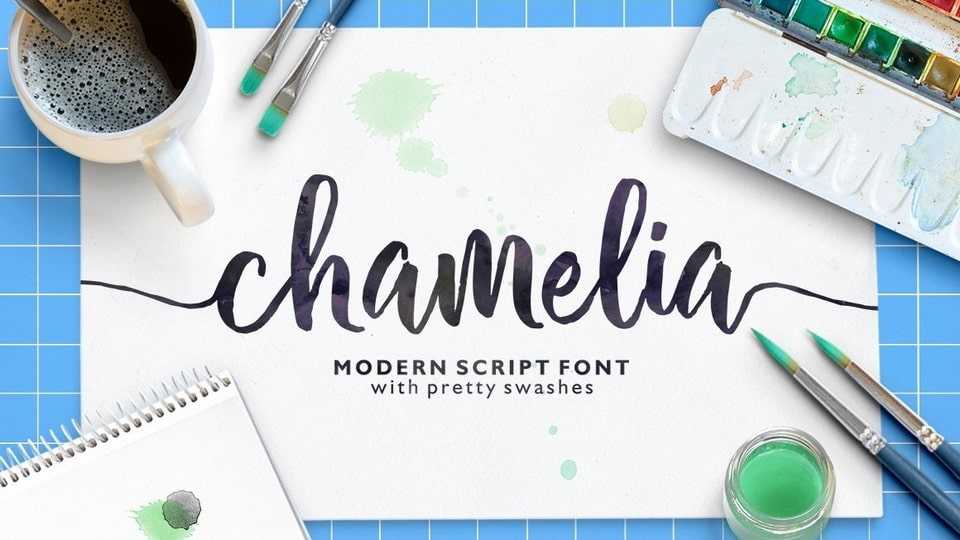
Download Chamelia font, a lovely and modern calligraphic script. It features dynamic and pretty swashes and can be used for many purposes, such as titles, signatures, logos.